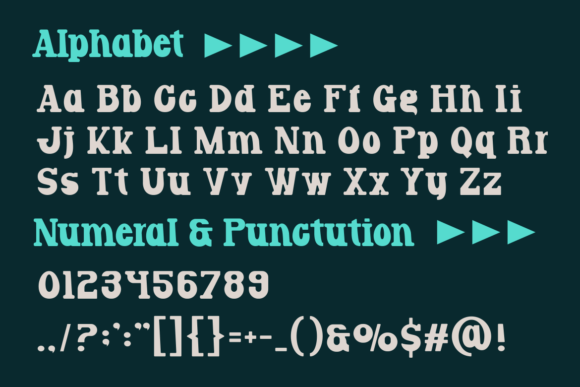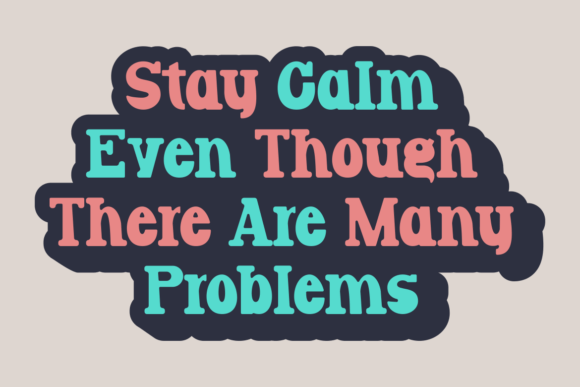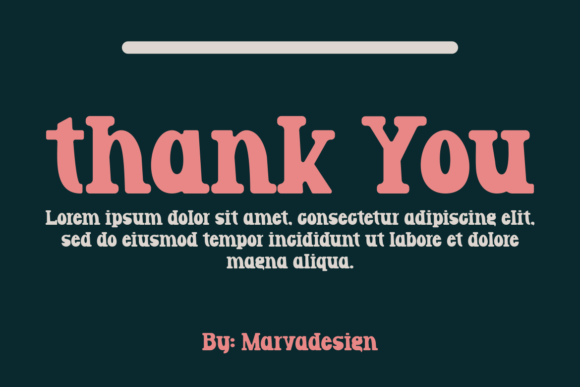
Dumpy Font: The Retro Playful Typeface for Unique Designs
In the world of typography, fonts play a crucial role in conveying the tone and personality of a brand or design. With the numerous font options available, it’s not easy to find one that stands out from the rest. However, if you’re looking for a typeface that exudes a nostalgic feel, is playful, and screams uniqueness, then the Dumpy Font is an excellent choice. In this article, we’ll dive into the world of Dumpy Font, exploring its characteristics, uses, and what makes it a perfect fit for designers and crafters.
The Retro Charm of Dumpy Font
Dumpy Font is a typeface that effortlessly blends retro and playful elements, transporting us back to the 1970s and 1980s. The font’s design is reminiscent of the iconic typography of these eras, with bold and funky shapes that create a sense of fun and energy. The letters are meticulously crafted, with a mix of chunky and slender lines that add to the font’s distinctive look. This unique blend of retro and playfulness makes Dumpy Font an excellent choice for designs that require a nostalgic feel.
Key Characteristics of Dumpy Font
So, what makes Dumpy Font so special? Here are some of its key characteristics:
- Retro and Playful: Dumpy Font’s design is heavily influenced by the typography of the 70s and 80s, making it perfect for designs that require a nostalgic feel.
- Bold and Funky: The font’s bold and funky shapes add a touch of playfulness, making it ideal for designs that require a unique and energetic look.
- Vintage and Hipster: Dumpy Font’s vintage and hipster appearance makes it a great fit for branding, advertising, and designs that require a distinctive look.
- Well-designed Letters: Each letter is carefully crafted, with a mix of chunky and slender lines that add to the font’s unique personality.
Uses of Dumpy Font
Dumpy Font is an incredibly versatile typeface that can be used in a wide range of design applications. Here are some of the ways you can use Dumpy Font:
- Branding: Use Dumpy Font to create a unique and memorable brand identity that stands out from the competition.
- Advertising: The font’s bold and playful design makes it perfect for advertising campaigns that require a fun and energetic look.
- Posters and Flyers: Dumpy Font is an excellent choice for posters and flyers that require a bold and eye-catching headline.
- Digital Graphics: Use Dumpy Font to add a touch of nostalgia and playfulness to your digital graphics, such as social media graphics and email headers.
Why Designers and Crafters Love Dumpy Font
Designers and crafters love Dumpy Font for several reasons:
- Unique and Distinctive: Dumpy Font’s unique design makes it stand out from other fonts, allowing designers to create designs that are truly one-of-a-kind.
- Easy to Read: Despite its bold and playful design, Dumpy Font is easy to read, making it perfect for designs that require a clear and concise message.
- Versatile: Dumpy Font can be used in a wide range of design applications, from branding and advertising to posters and digital graphics.
In conclusion, Dumpy Font is a unique and versatile typeface that is perfect for designers and crafters looking to add a touch of nostalgia and playfulness to their designs. Its retro charm, bold and funky shapes, and vintage and hipster appearance make it an excellent choice for branding, advertising, and designs that require a distinctive look. Whether you’re a seasoned designer or a crafter looking for a unique font, Dumpy Font is definitely worth checking out.